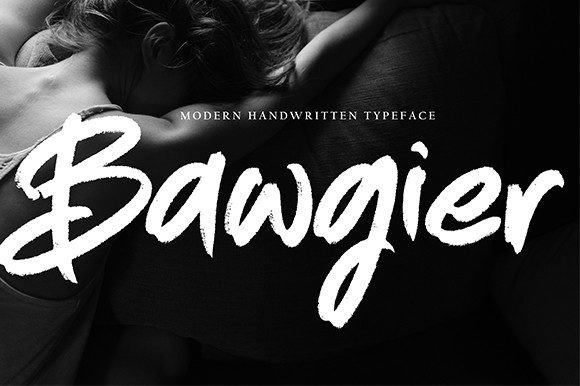
Bawgier Font: The Ultimate Guide to this Cool and Bold Handwritten Script Font
Are you tired of using the same old fonts in your designs? Look no further! Bawgier Font is here to shake things up with its incredibly distinct and timeless style. This cool and bold handwritten script font is perfect for designers and crafters who want to add a touch of personality to their work. In this article, we’ll dive into the world of Bawgier Font and explore its features, benefits, and uses.
What is Bawgier Font?
Bawgier Font is a handwritten script font that boasts a unique and eye-catching style. Its bold and cursive letters are carefully crafted to give your designs a personal touch that’s hard to resist. Whether you’re working on a branding project, a wedding invitation, or a social media graphic, Bawgier Font is sure to make your design stand out from the crowd.
Features of Bawgier Font
• Unique and Distinct Style: Bawgier Font has a one-of-a-kind style that’s both modern and timeless. Its bold and cursive letters are perfect for making a statement in your designs.
• Handwritten with Love: This font is carefully handcrafted with love and attention to detail. Each letter is written with precision and care, giving the font a personal and human touch.
• Bold and Cursive: Bawgier Font features bold and cursive letters that are perfect for creating eye-catching designs. Its bold strokes and flowing curves make it a joy to use.
• Multilingual Support: Bawgier Font supports multiple languages, making it a great choice for designers who work with international clients.
Benefits of Using Bawgier Font
• Adds Personality to Your Designs: Bawgier Font is perfect for designers who want to add a touch of personality to their work. Its unique style and bold letters make it a great choice for creating eye-catching designs.
• Perfect for Branding and Advertising: Bawgier Font is a great choice for branding and advertising projects. Its bold and cursive letters make it perfect for creating logos, posters, and social media graphics.
• Easy to Read: Despite its bold style, Bawgier Font is easy to read and understand. This makes it perfect for creating designs that need to communicate a message clearly.
• Versatile: Bawgier Font is a versatile font that can be used in a variety of design projects. From wedding invitations to business cards, it’s perfect for any project that needs a touch of personality.
How to Use Bawgier Font
• Pair it with Other Fonts: Bawgier Font looks great when paired with other fonts. Try pairing it with a sans-serif font for a modern look or a serif font for a more traditional look.
• Use it for Headings and Titles: Bawgier Font is perfect for creating eye-catching headings and titles. Use it to add a touch of personality to your designs.
• Experiment with Colors: Bawgier Font looks great in a variety of colors. Experiment with different colors to find the one that works best for your design.
In conclusion, Bawgier Font is a cool and bold handwritten script font that’s perfect for designers and crafters who want to add a touch of personality to their work. Its unique style, bold letters, and multilingual support make it a great choice for a variety of design projects. Whether you’re working on a branding project, a wedding invitation, or a social media graphic, Bawgier Font is sure to make your design stand out from the crowd.